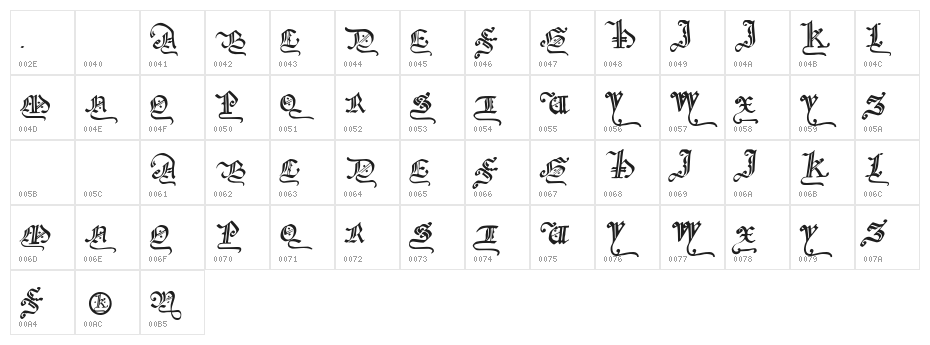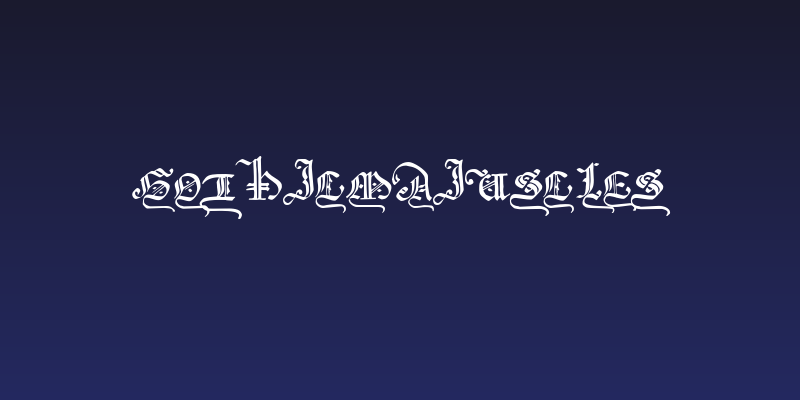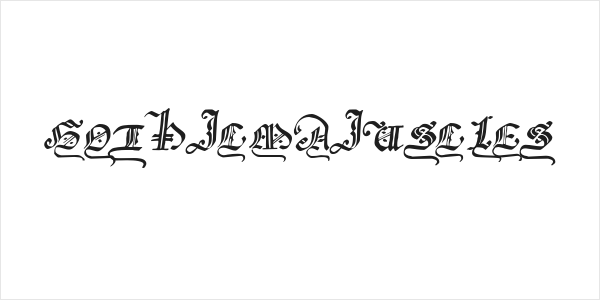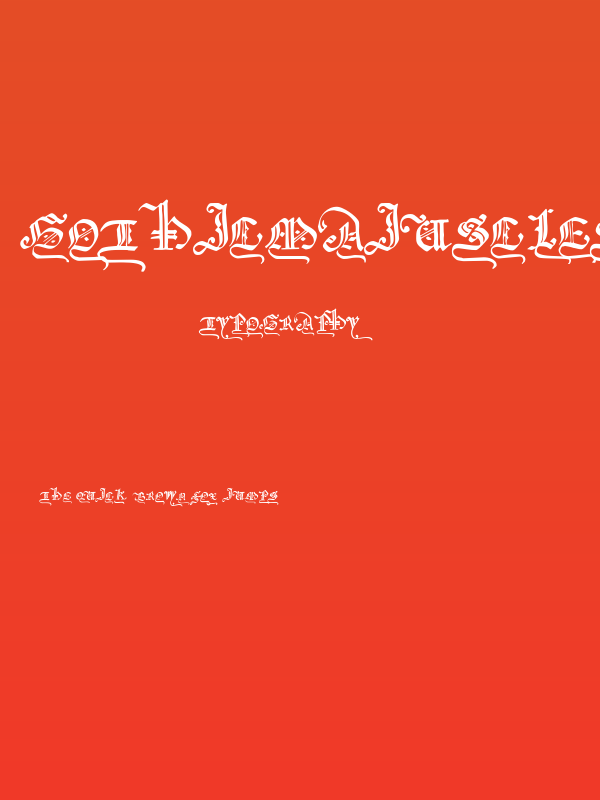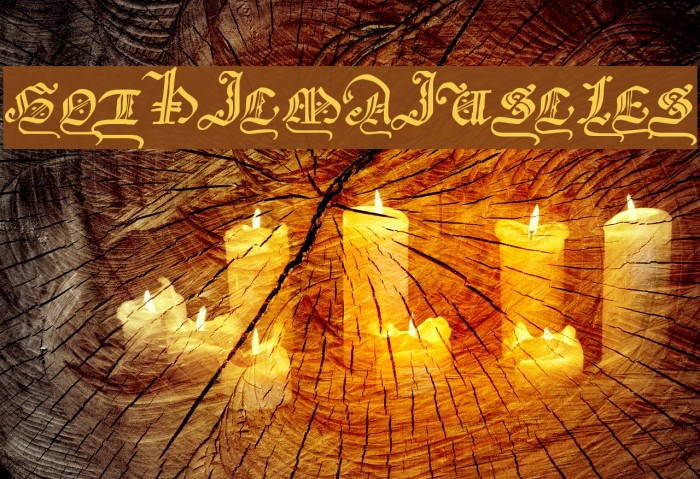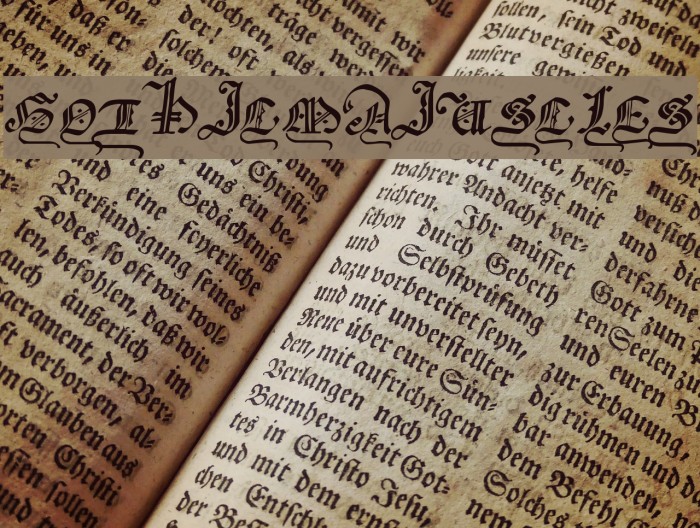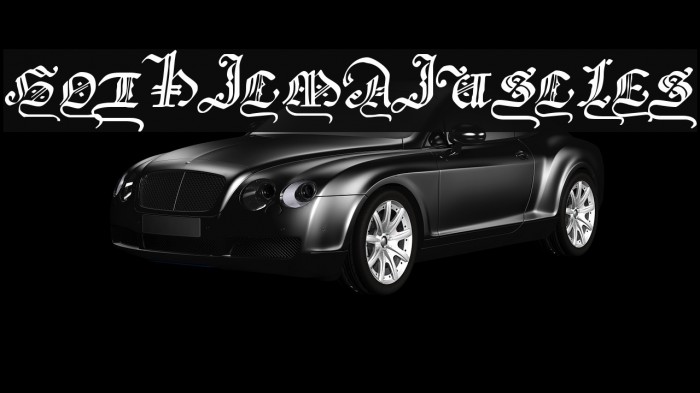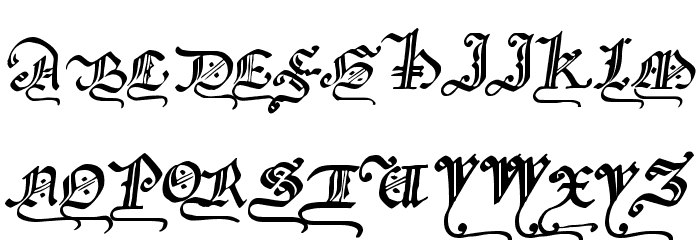
GothicMajuscles Font
GothicMajuscles Description
This font features an intricate and ornate design, reminiscent of medieval manuscripts and Gothic architecture. The characters are embellished with elaborate flourishes and sharp, angular strokes that convey a sense of historical elegance and complexity. Each letter is distinct, with unique decorative elements that enhance its visual appeal. The font's style is both dramatic and artistic, making it suitable for projects that require a touch of antiquity and sophistication. The overall appearance is bold and eye-catching, with a strong emphasis on vertical lines and pointed serifs.
| Proposed Projects | Ideal for historical-themed designs, book covers, invitations, and branding that seeks a vintage or medieval touch. |